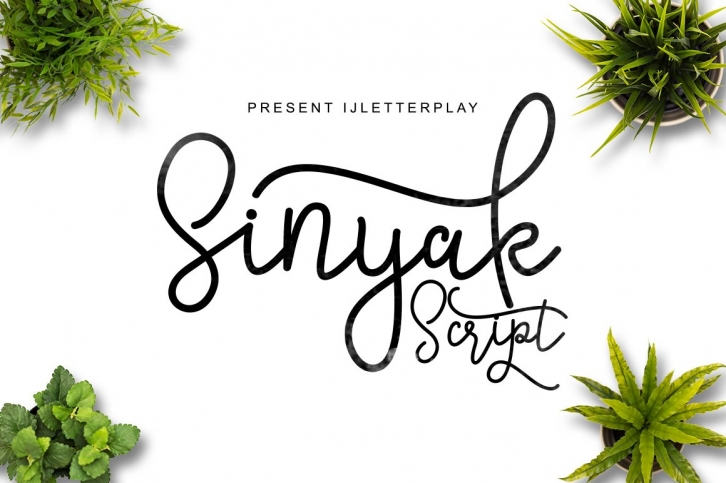
Introducing
Sinyak Script a new fresh & modern script with a handmade calligraphy style, decorative characters and a dancing baseline! So beautiful on invitation like greeting cards, branding materials, business cards, quotes, posters, and more!!
Sinyak Script come with 377 glyphs. The alternative characters were divided into several Open Type features such as Swash, Stylistic Sets, Stylistic Alternates. The Open Type features can be accessed by using Open Type savvy programs such as Adobe Illustrator, Adobe InDesign, Adobe Photoshop Corel Draw X version, And Microsoft Word. And this Font has given PUA unicode (specially coded fonts). so that all the alternate characters can easily be accessed in full by a craftsman or designer.
Sinyak Script Features :